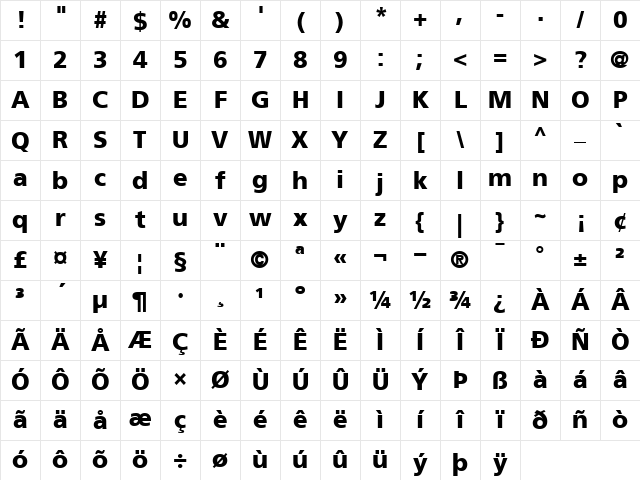
Frutiger Black Free Font
Frutiger Black
Design Context for Frutiger
Frutiger is a composed and adaptable typeface that performs quietly and consistently across a wide range of design contexts.